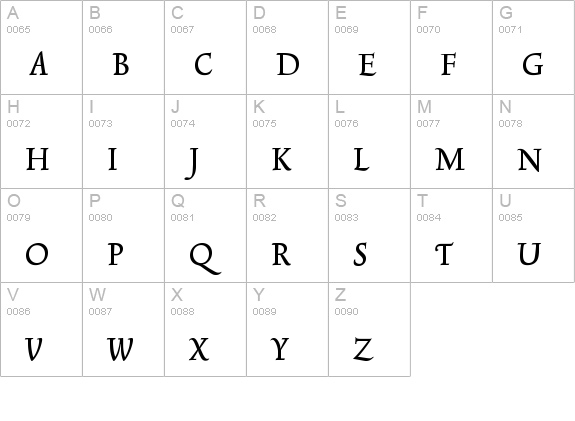
TriniteNo2-MediumItalic is a visually stunning font that effortlessly combines elegance and modernity. With its medium weight and italic slant, this font exudes a sense of sophistication and style. The smooth curves and delicate strokes of each letter create a harmonious and balanced appearance, making it suitable for a wide range of design projects. What sets TriniteNo2-MediumItalic apart is its versatility. This font can be used for various purposes, including headlines, titles, logos, branding materials, and more. Its medium weight strikes the perfect balance between being bold enough to catch attention and being subtle enough to maintain readability. One of the most appealing aspects of TriniteNo2-MediumItalic is that it is freely available to download at FontsMarket.com. This means that designers and creators can access this font without any cost, making it an excellent choice for those who appreciate quality fonts but have budget constraints. The overall aesthetic of TriniteNo2-MediumItalic is timeless and elegant, making it a perfect choice for projects that require a touch of sophistication. Whether you are designing a website, creating a print advertisement, or crafting a logo, this font will undoubtedly add a touch of class to your work. The characters of TriniteNo2-MediumItalic are meticulously designed, ensuring legibility across various screen and print sizes. The slight italic slant adds a touch of dynamism and movement to the text, making it visually engaging and captivating. In conclusion, TriniteNo2-MediumItalic is a must-have typeface for designers who seek a balanced and elegant font that is both visually appealing and versatile. With its graceful curves and medium weight, this font will effortlessly enhance any design project. And the best part? It is freely available to download at FontsMarket.com, allowing you to embrace its beauty without any financial constraints.